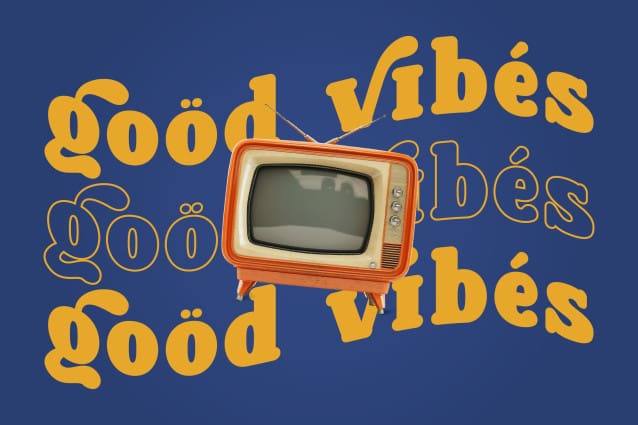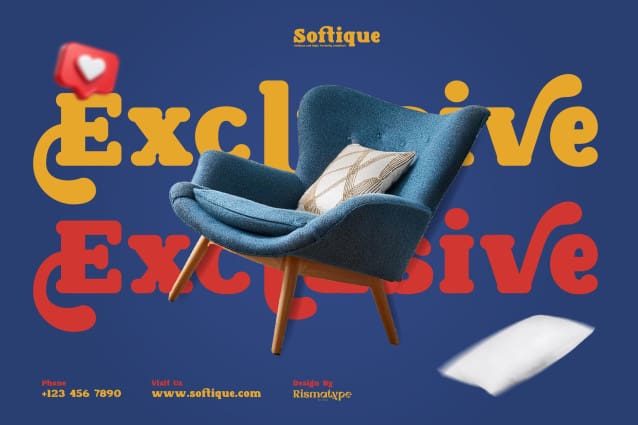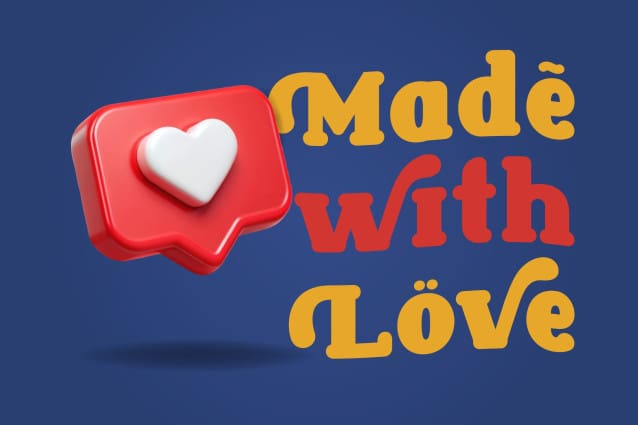
Magic Twilight Font
Magic Twilight Font is a refined, classic serif typeface with timeless elegance. The perfect combination of classic serifs and soft, romantic curves, this typeface exudes charm and sophistication. Whether you’re designing heartfelt wedding invitations, poetic love letters, dreamy social media posts, or vintage-inspired branding, Besta Rosta will bring a touch of romance and nostalgia to any project.